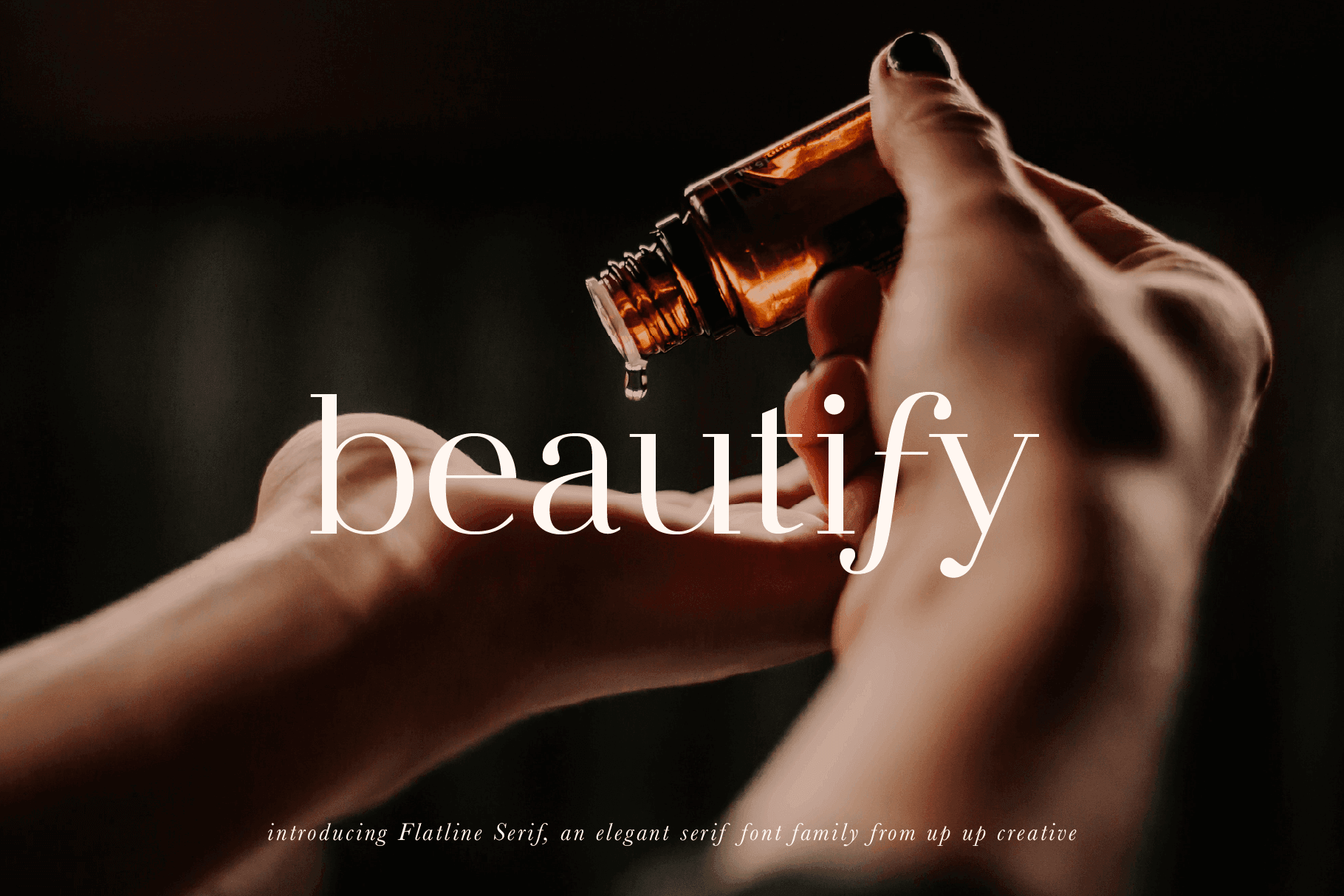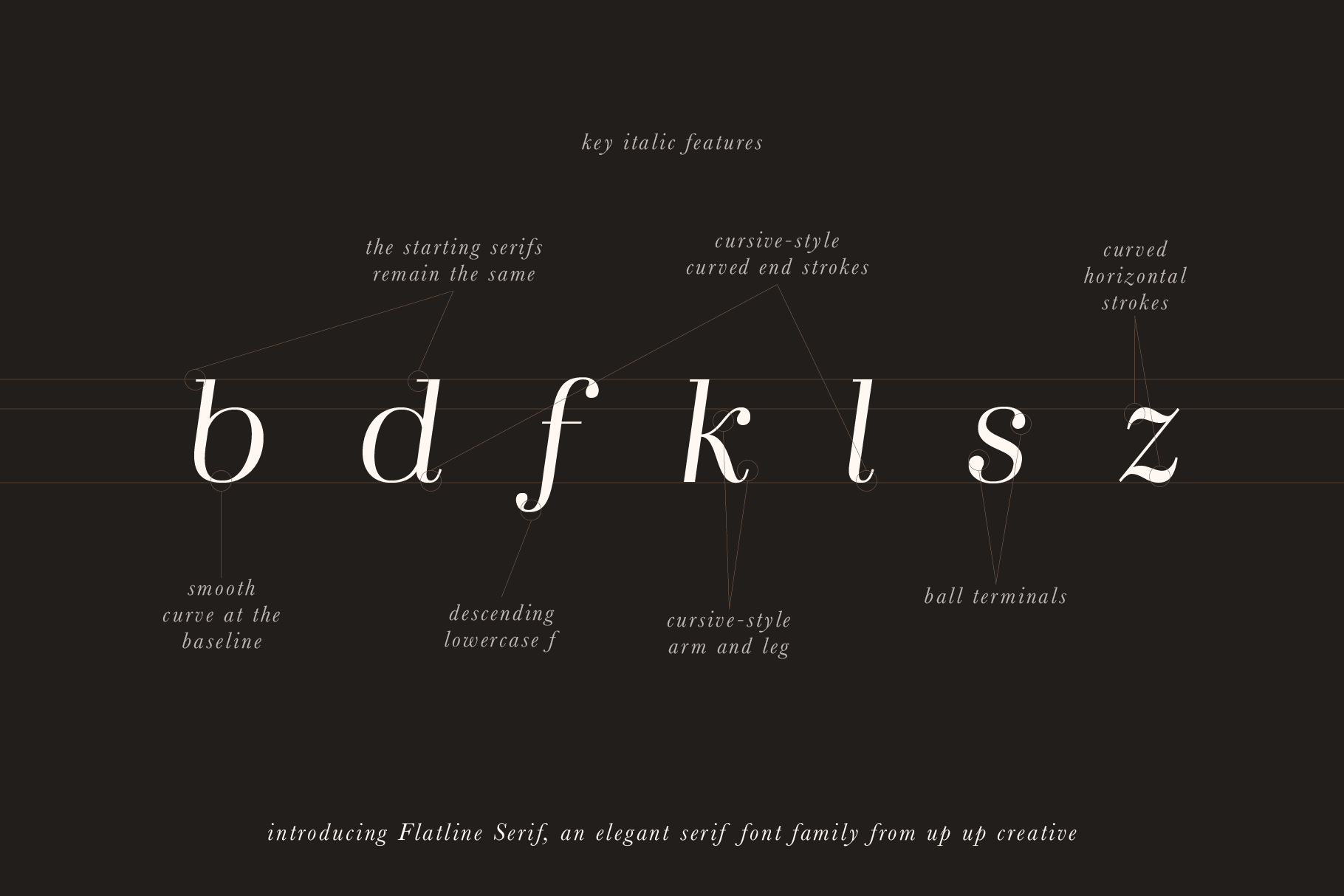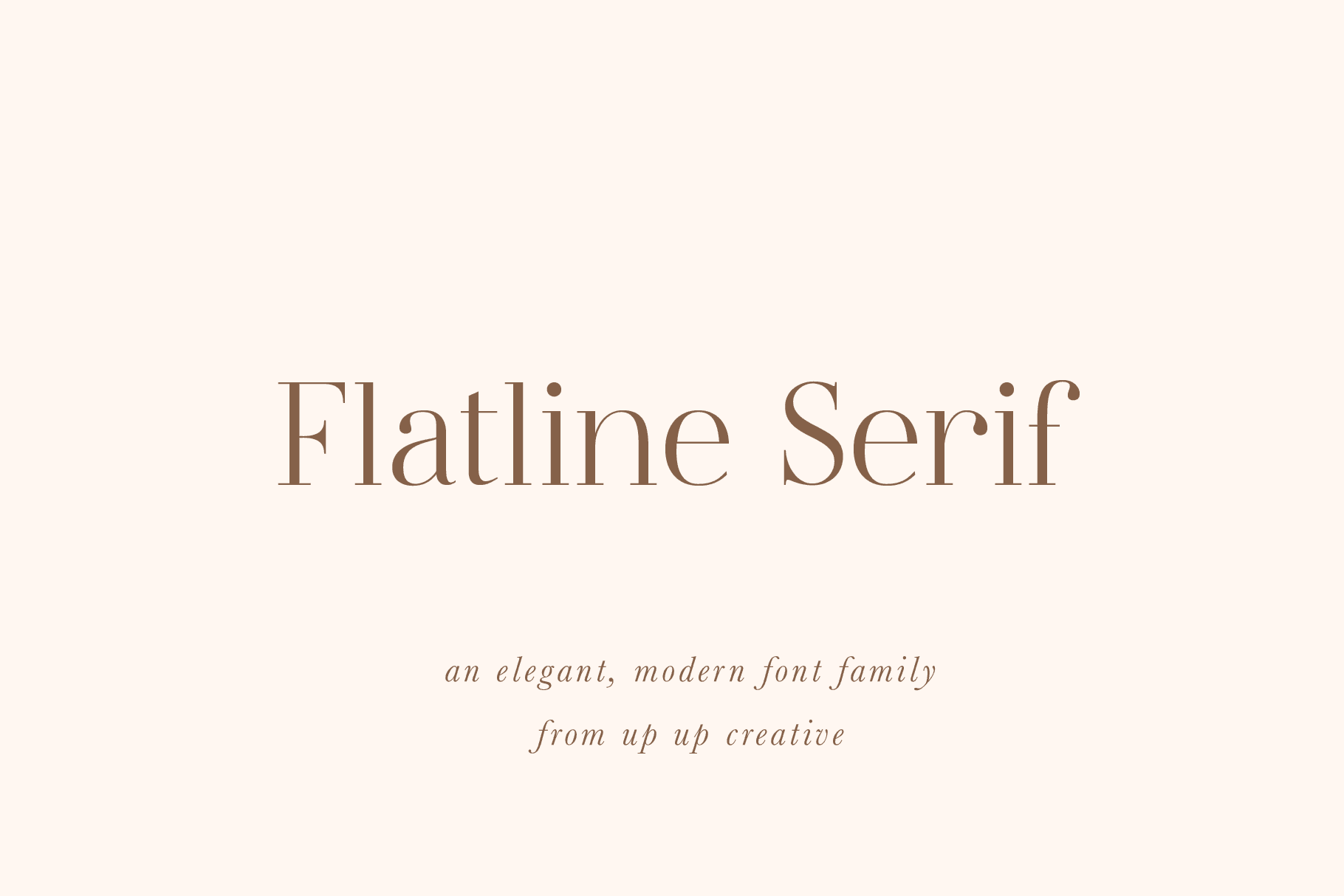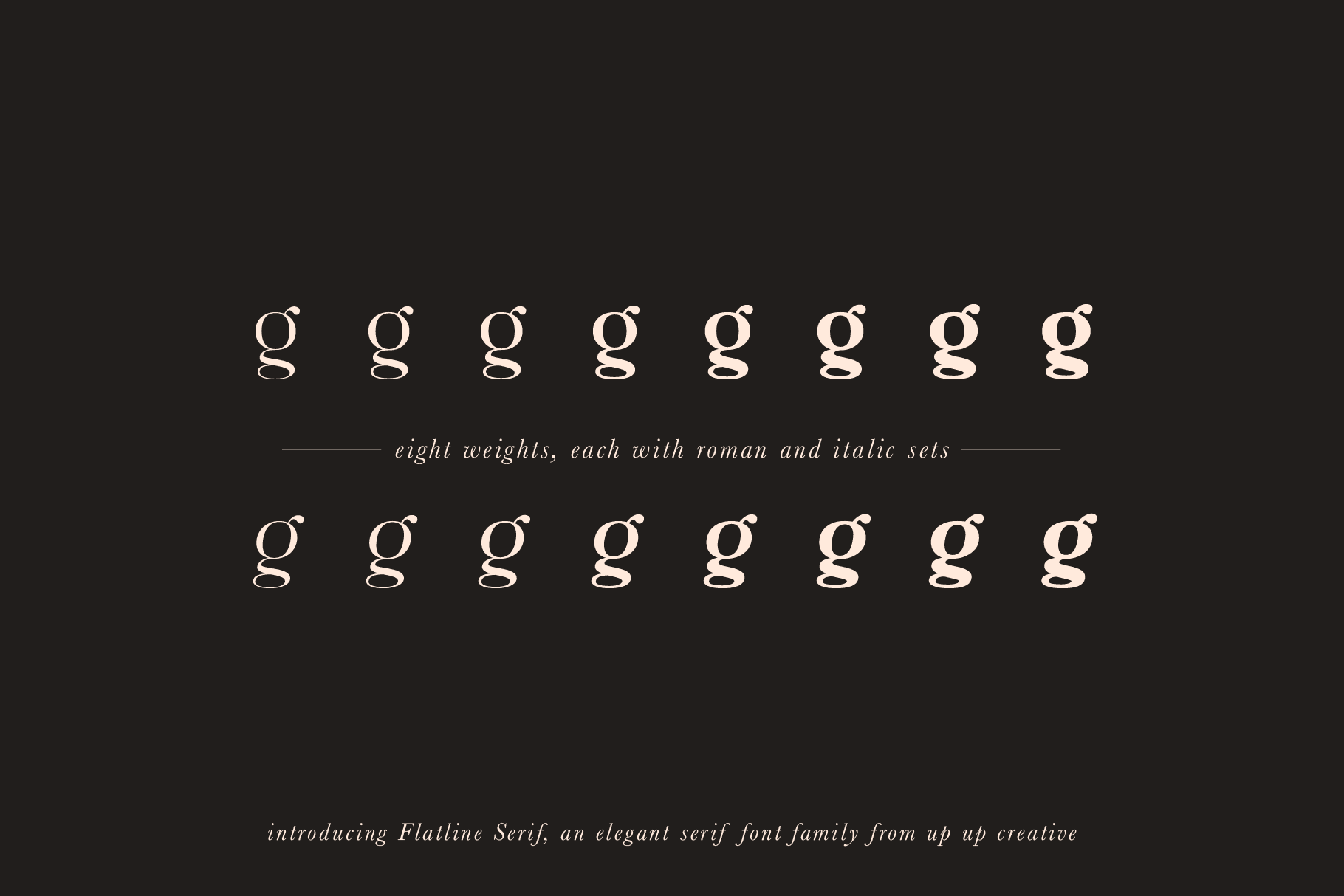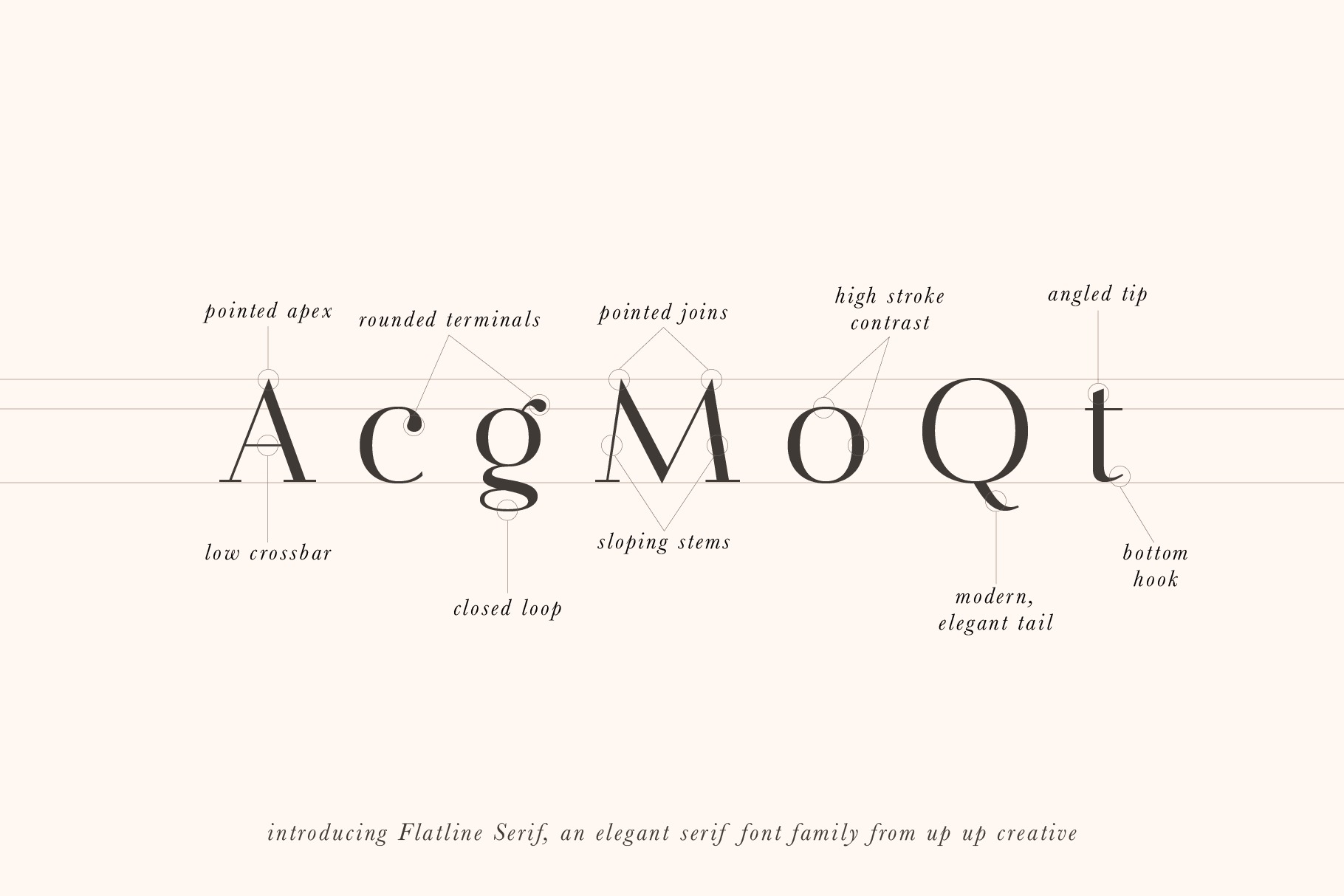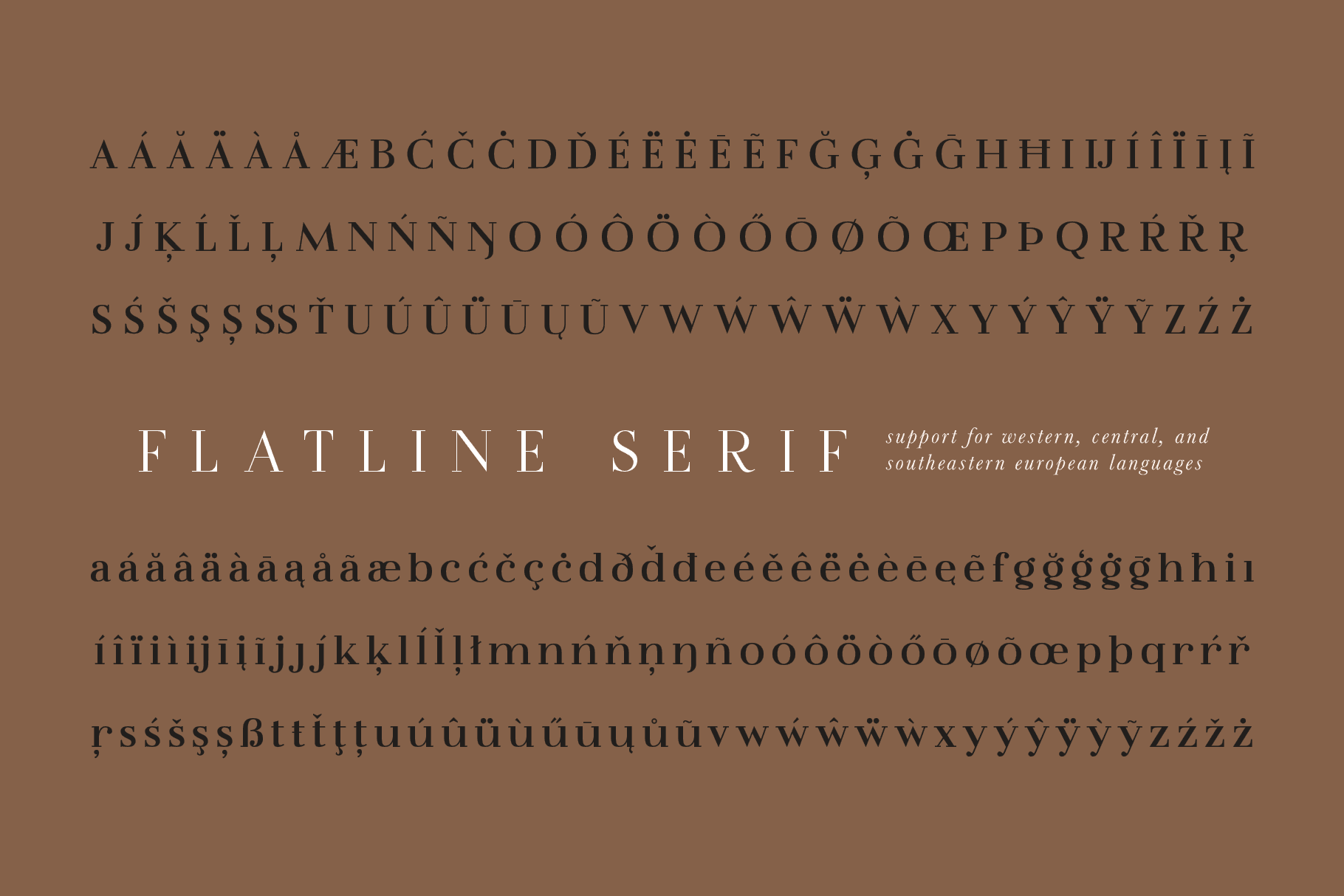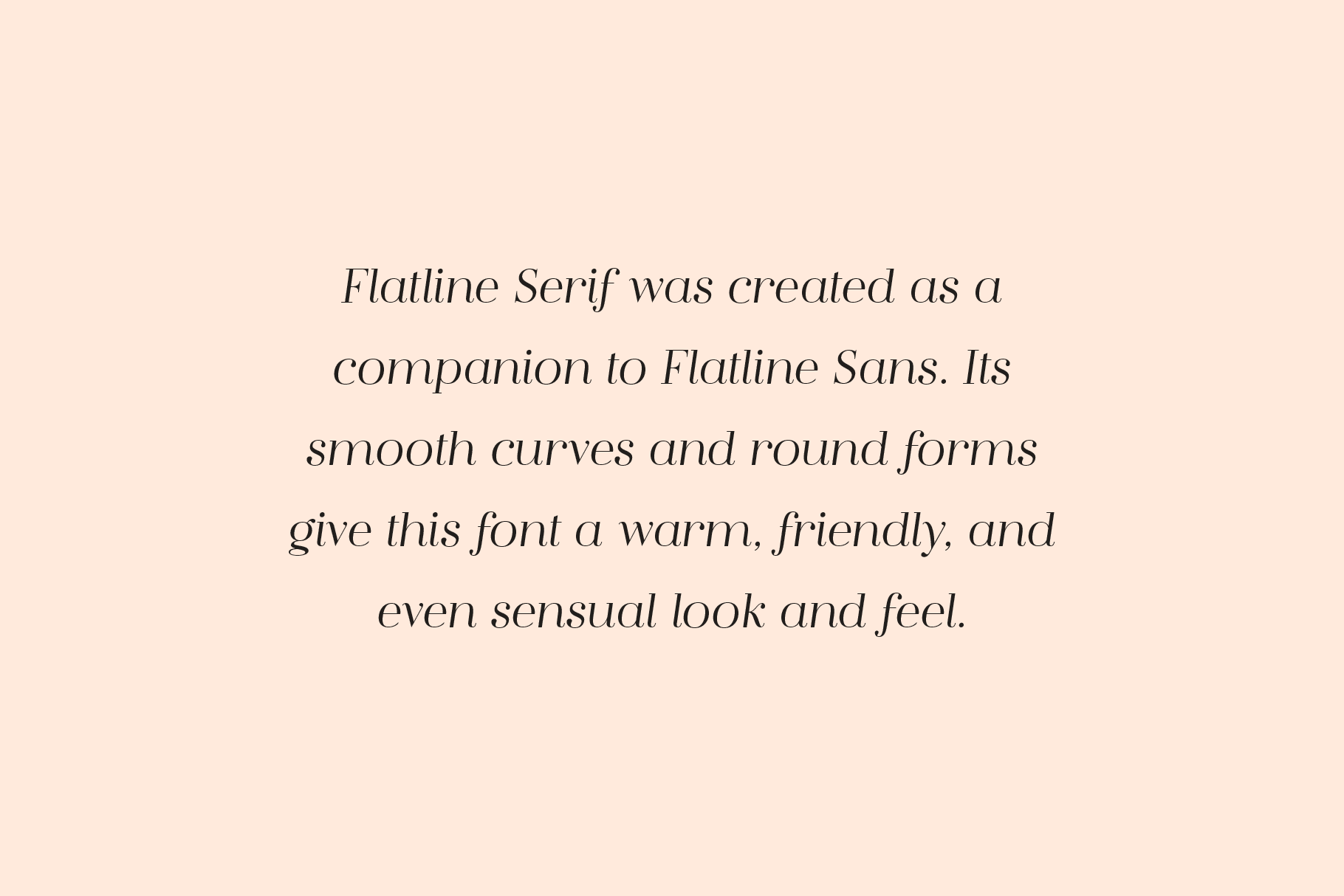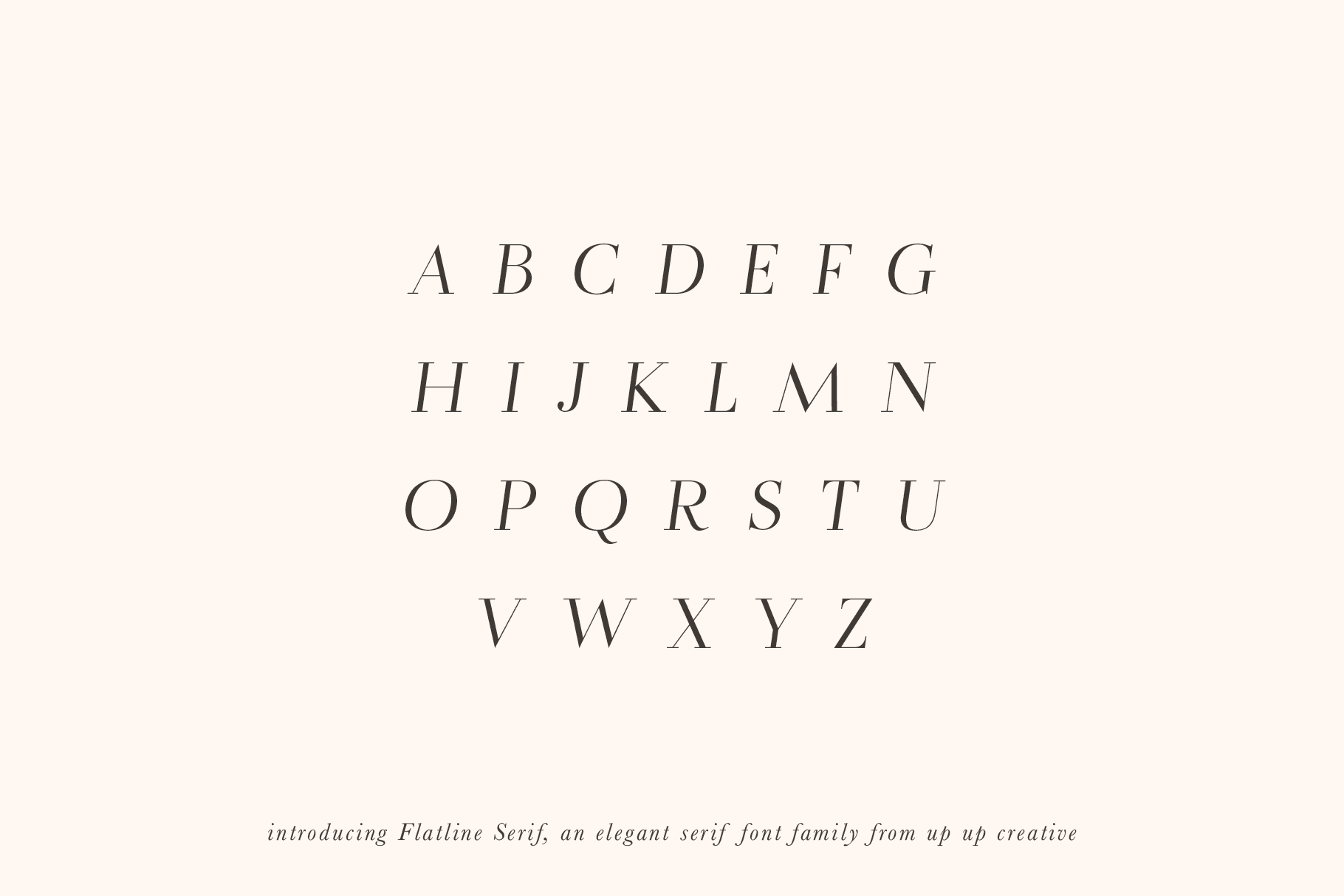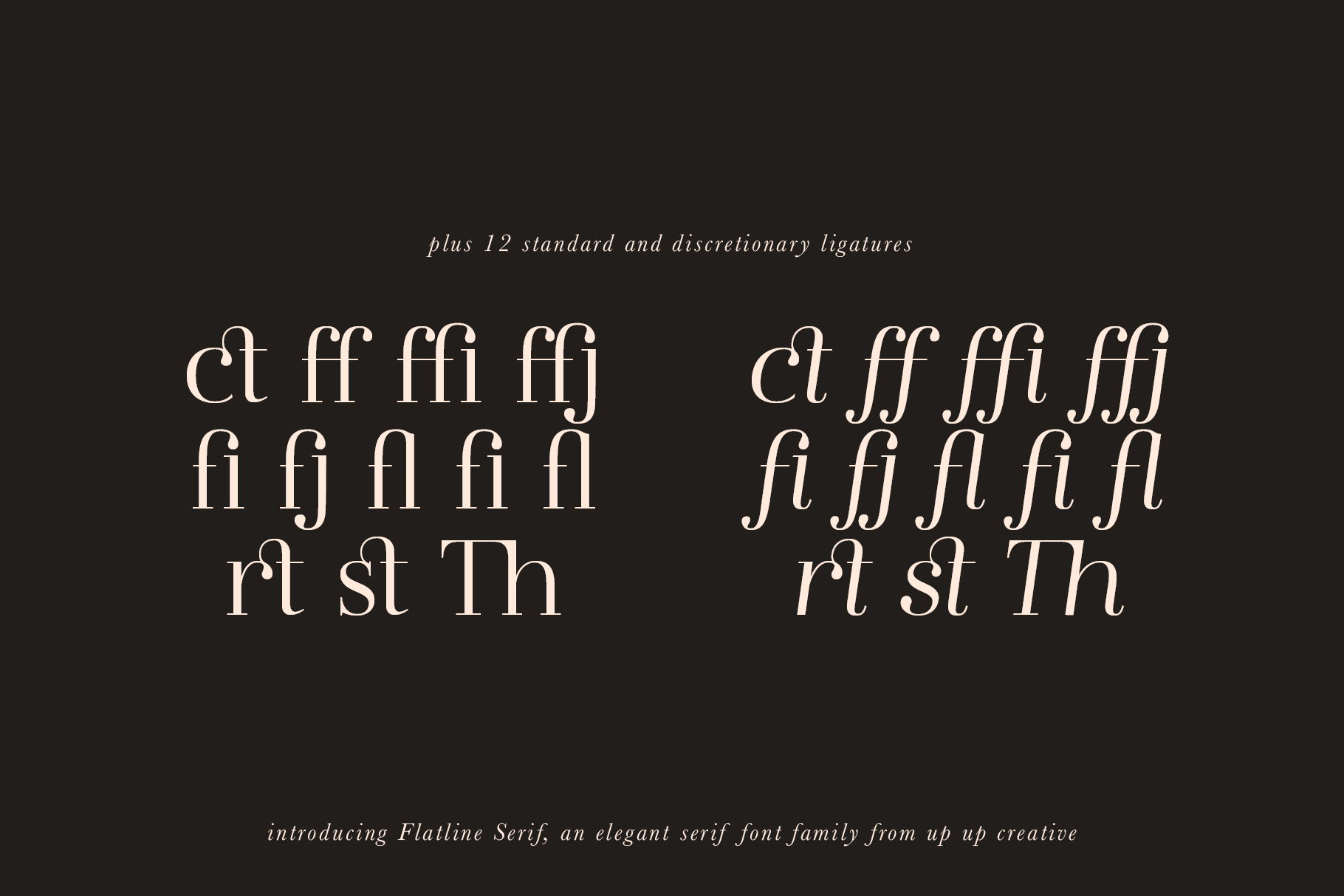
Flatline Serif Font Family
Flatline Serif is an elegant, modern serif font family built to coordinate with our bestselling Flatline Sans family. Meticulously drawn with high contrast between thick and thin strokes with the goal of making even the simplest sans serif letters look sensual, elegant, and warm.
Flatline includes the following OpenType features:
- character variants
- standard and discretionary ligatures
- fractions
- lining figures, oldstyle figures, proportional figures, and tabular figures
- localized forms (multi-language and multi-currency support)
- ordinals and superscripts
Includes 11 ligatures
- Released in 2021
- Includes 454 glyphs
- 8 Weights, each in Regular and Italic